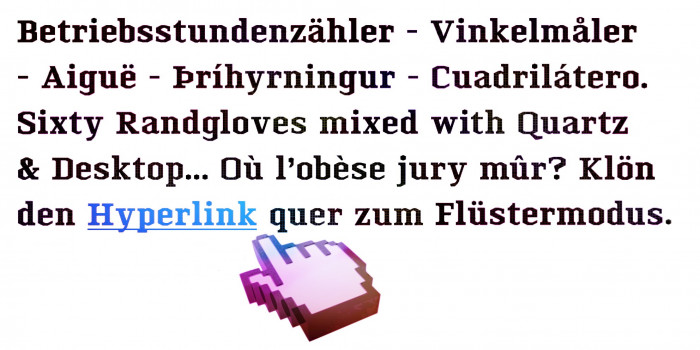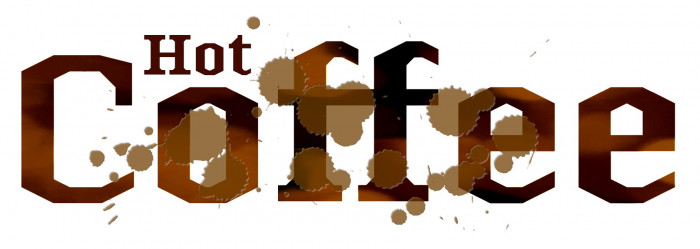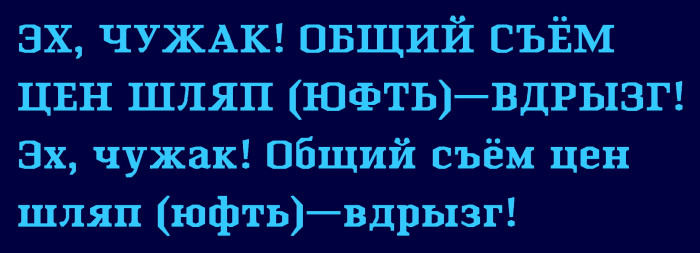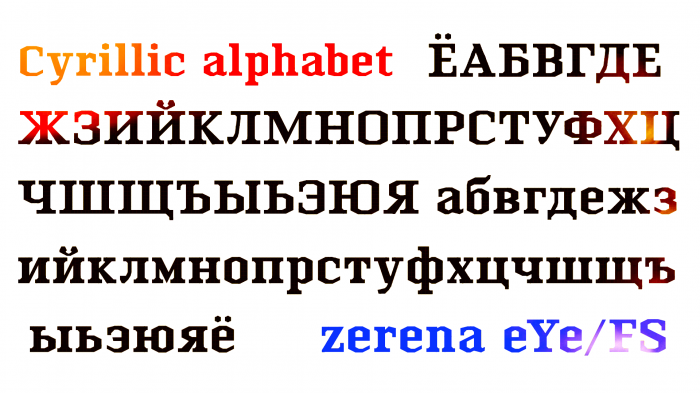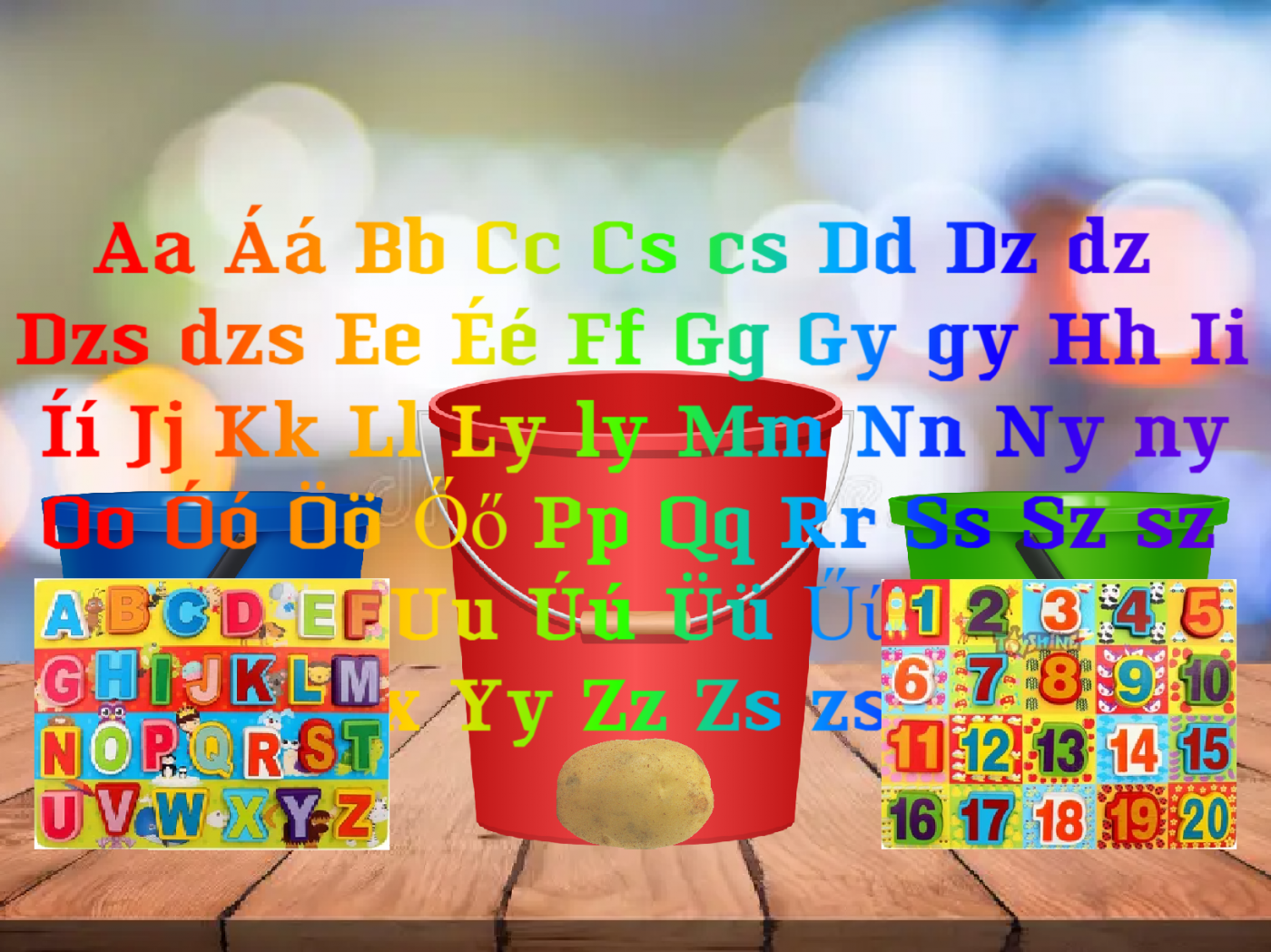
Extra "ff" and "tt" ligatures placed on the "fi" and "fl" glyphs. Legible even at pixel size.
What a beautiful font. Should I wait for the Cyrillic version, or should I make it myself?
Thank you very much, dear Dmitriy. I'm sorry to disappoint you, because I always rely a lot on your Cyrillic extensions for my fonts, but indeed I already planned to make the Cyrillic set for this font asap.
Thanks for the answer, I'm not disappointed, but on the contrary, I'm very glad, I saw it in your anti-war picture and decided to clarify. I would also add a couple more comments on that picture - the Й has a too thin diagonal line and there is no contrast in it`s kratka (or breve) (it usually has two drops or thickenings at the ends in antiquas).
Добавлена кириллица (Cyrillic added).
@Dmitriy Sychiov: As usual, thank you very very much for your help with the cyrillic alphabet and continuous comments and support. Subtle, elegant and efficient corrections. I have already integrated them into the font. But I would like to ask you a question: what about the "у, ж, к, я"? Is it just a matter of kerning or do you see something else to change?
Yes, just kerning, and I had some problems with я because of that, as you saw.
You might be able to optimize some of the slopes (e.g. 5/2)
The Hungarian Alphabet, could we make that, Elmoyenique?